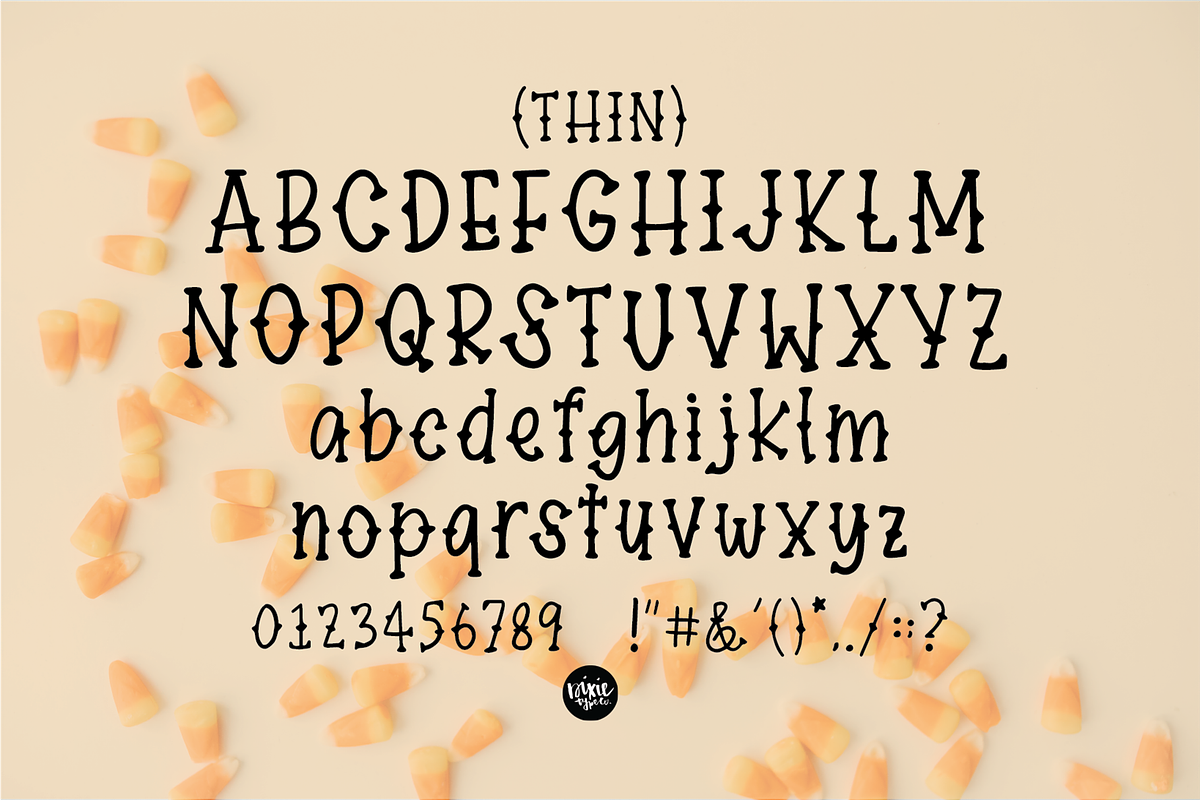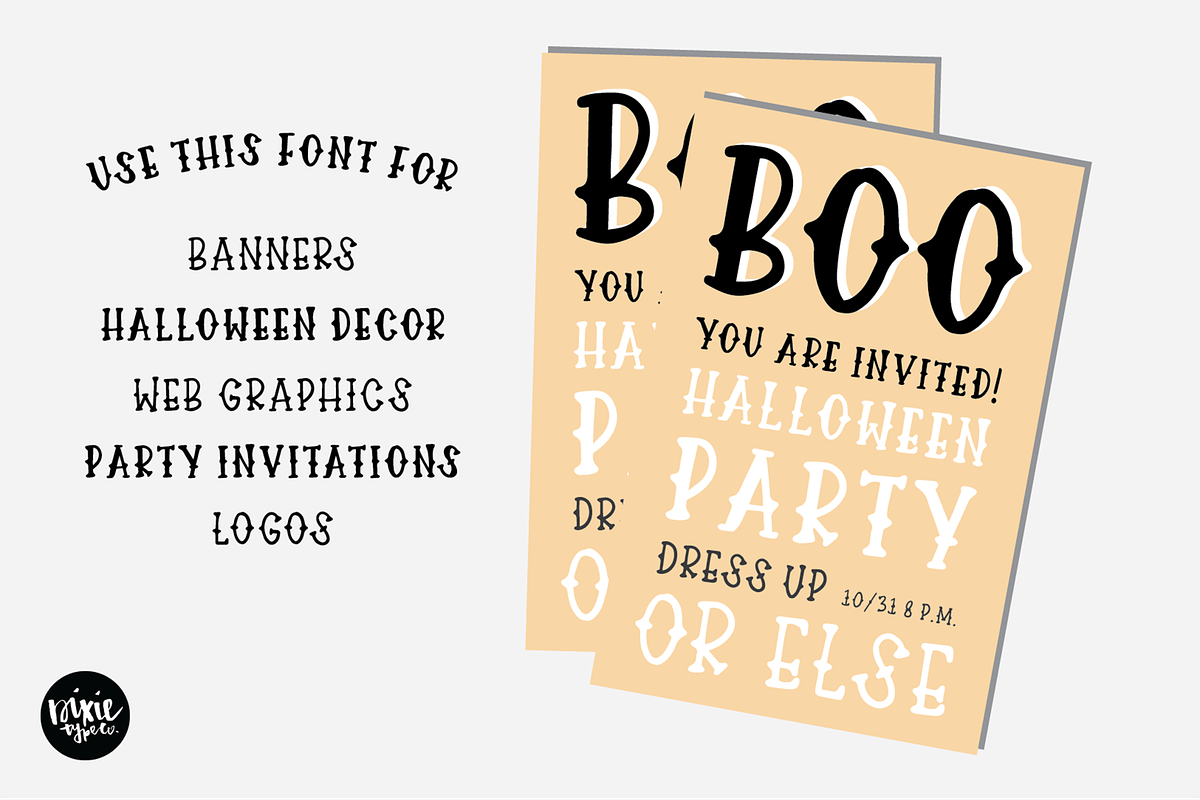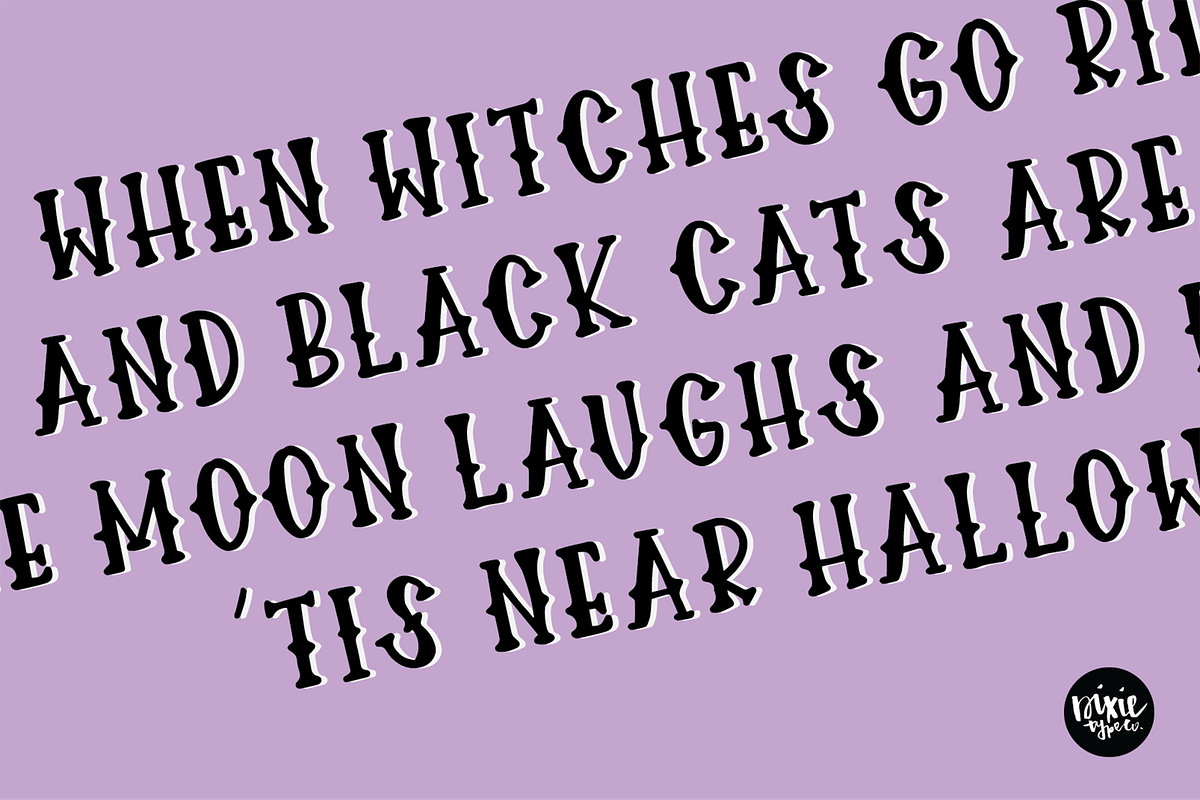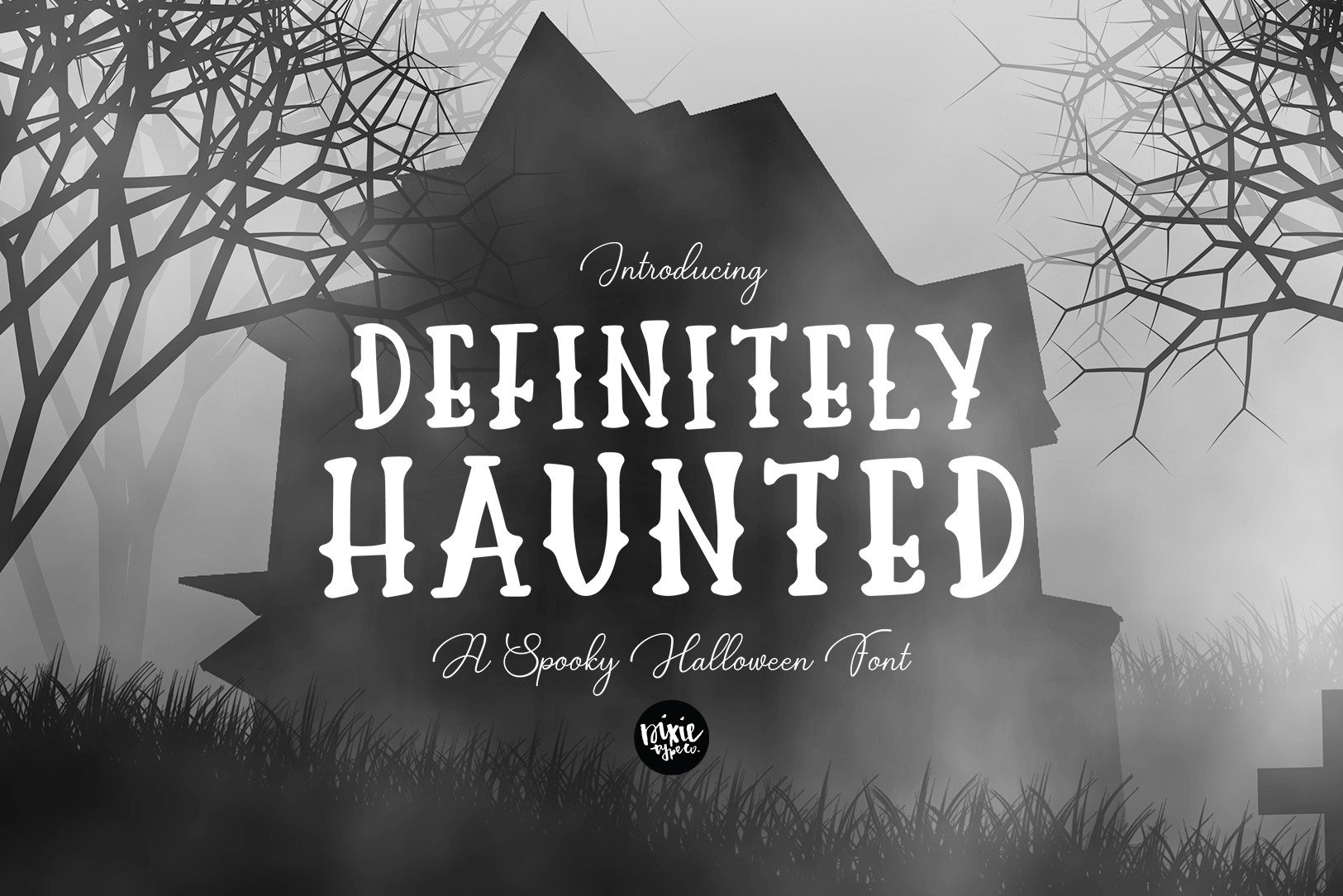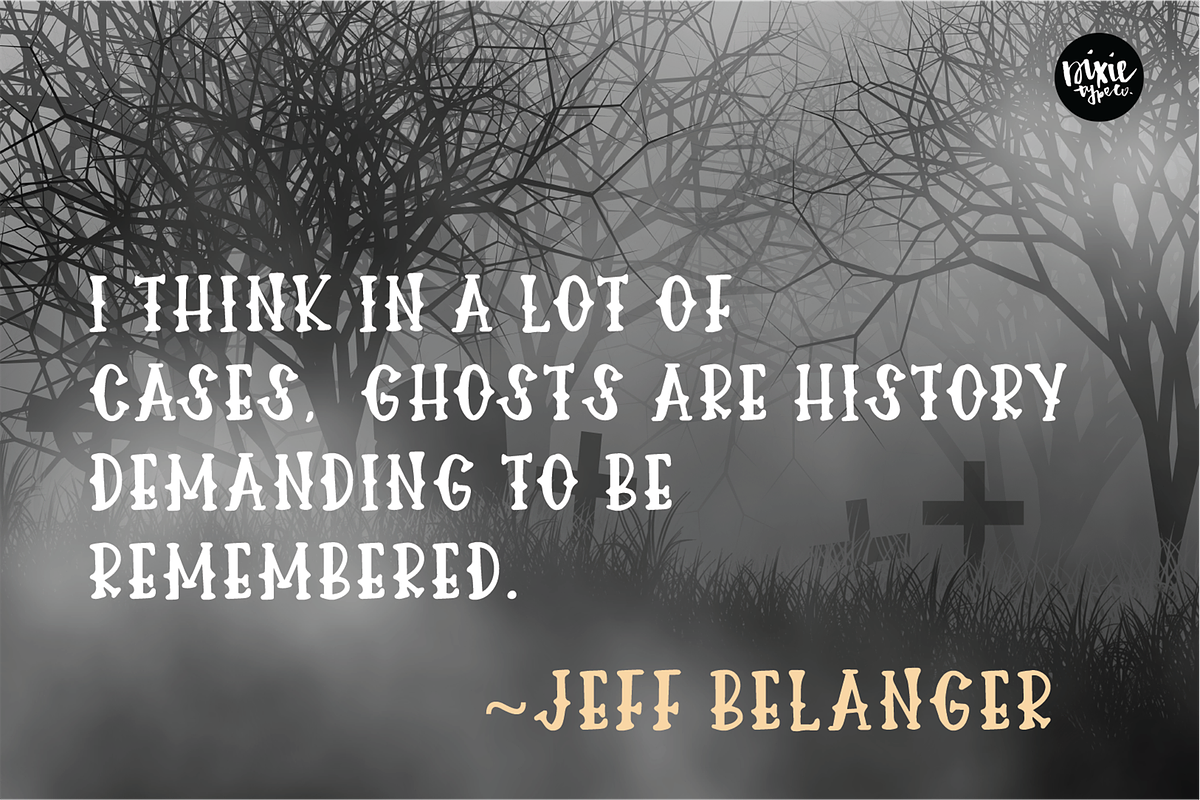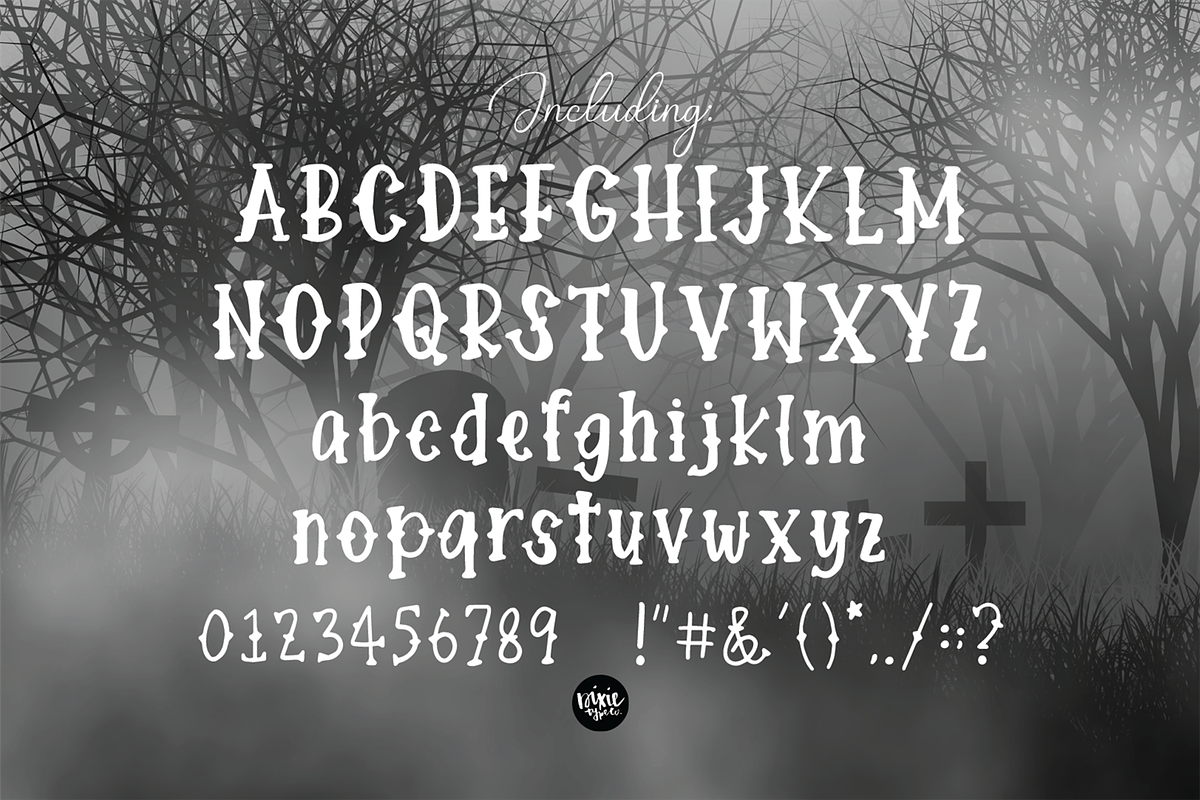
DEFINITELY HAUNTED Halloween Font
"Definitely Haunted" A Serif Halloween Font
Includes a bold and thin version.
{ A typographic font hand lettered with love by Dixie Type Co. }
This is an installable font that will work great with your Halloween party invitations, web graphics, and other halloween decor. This font is cuttable!